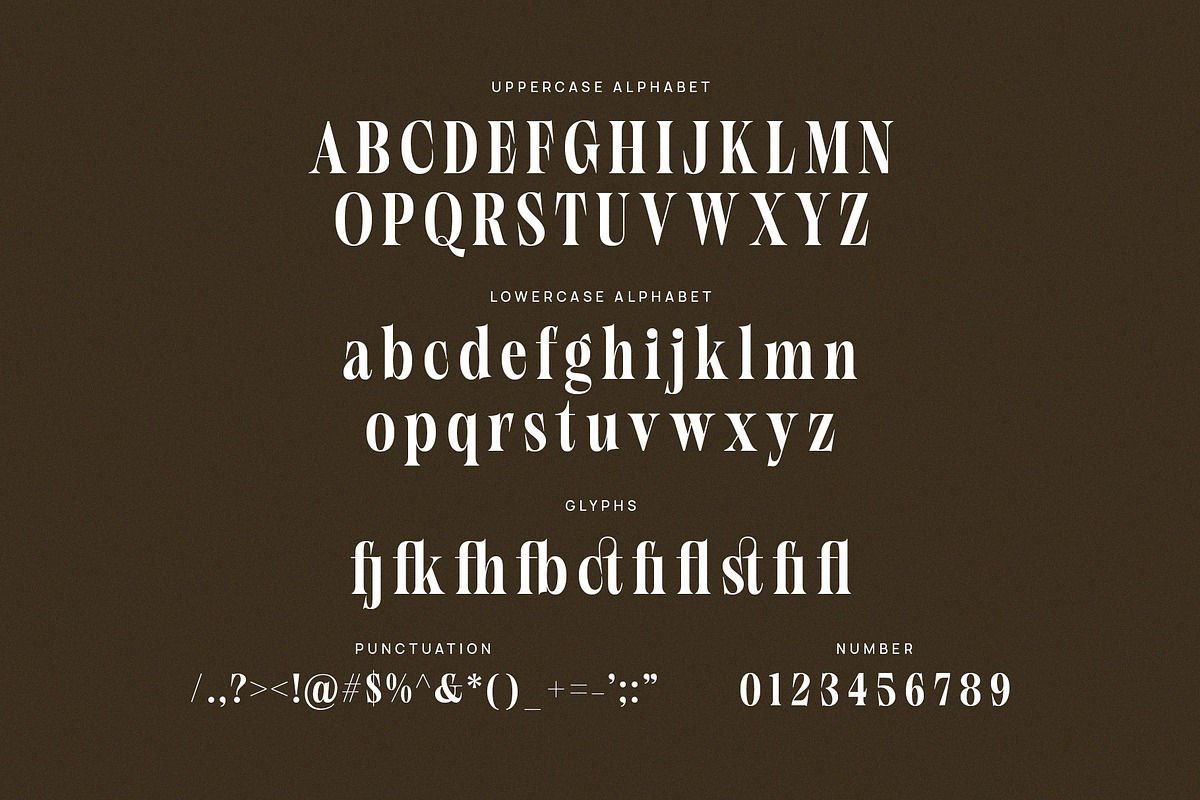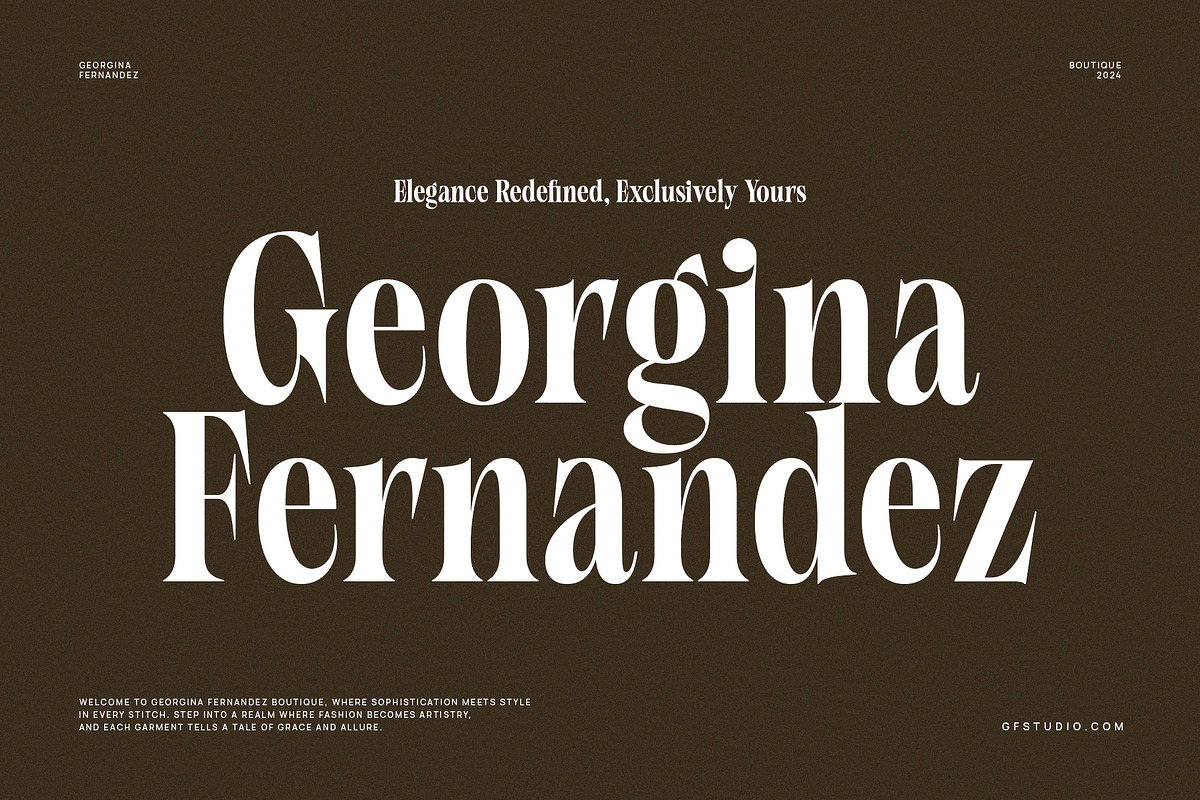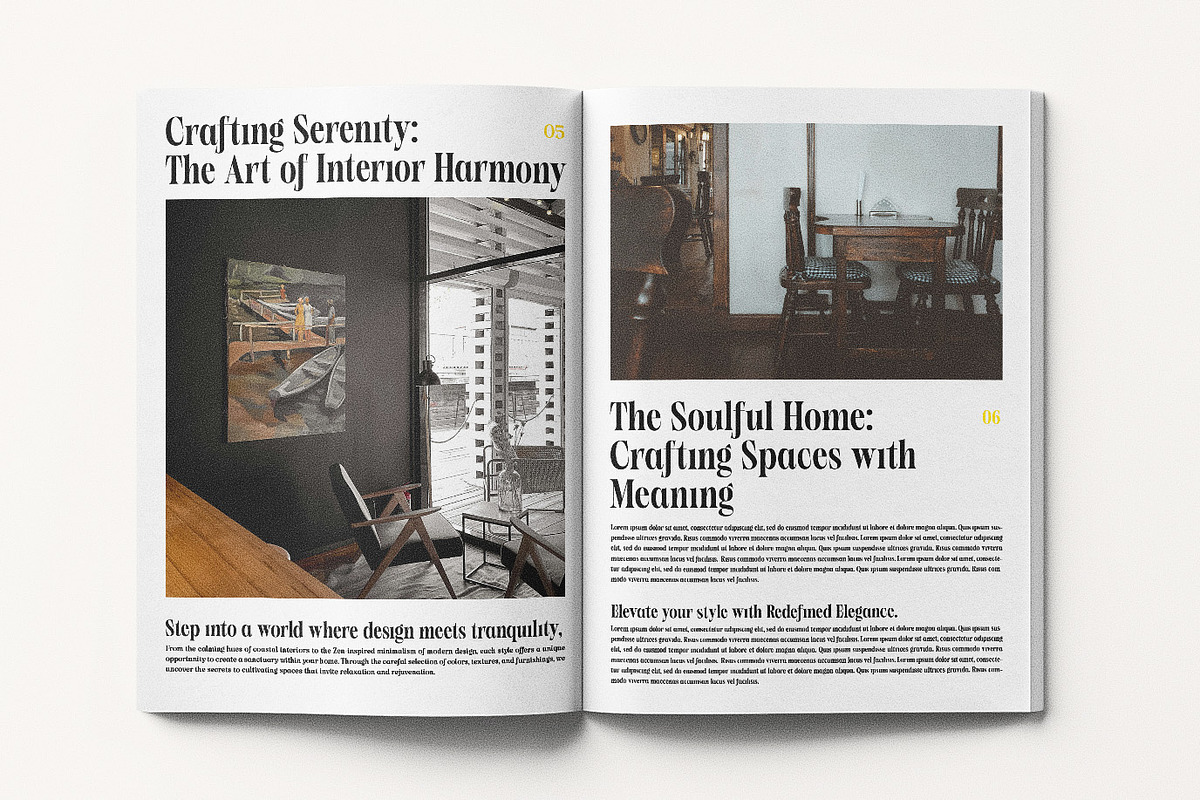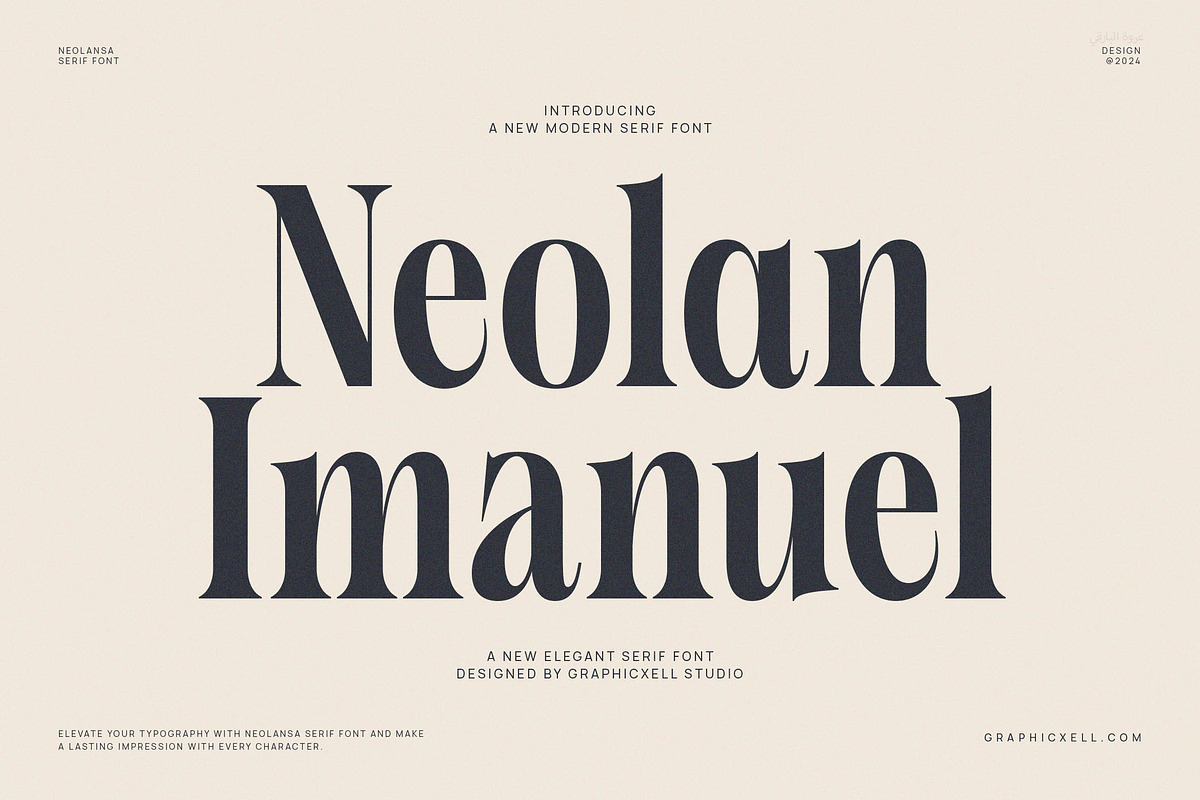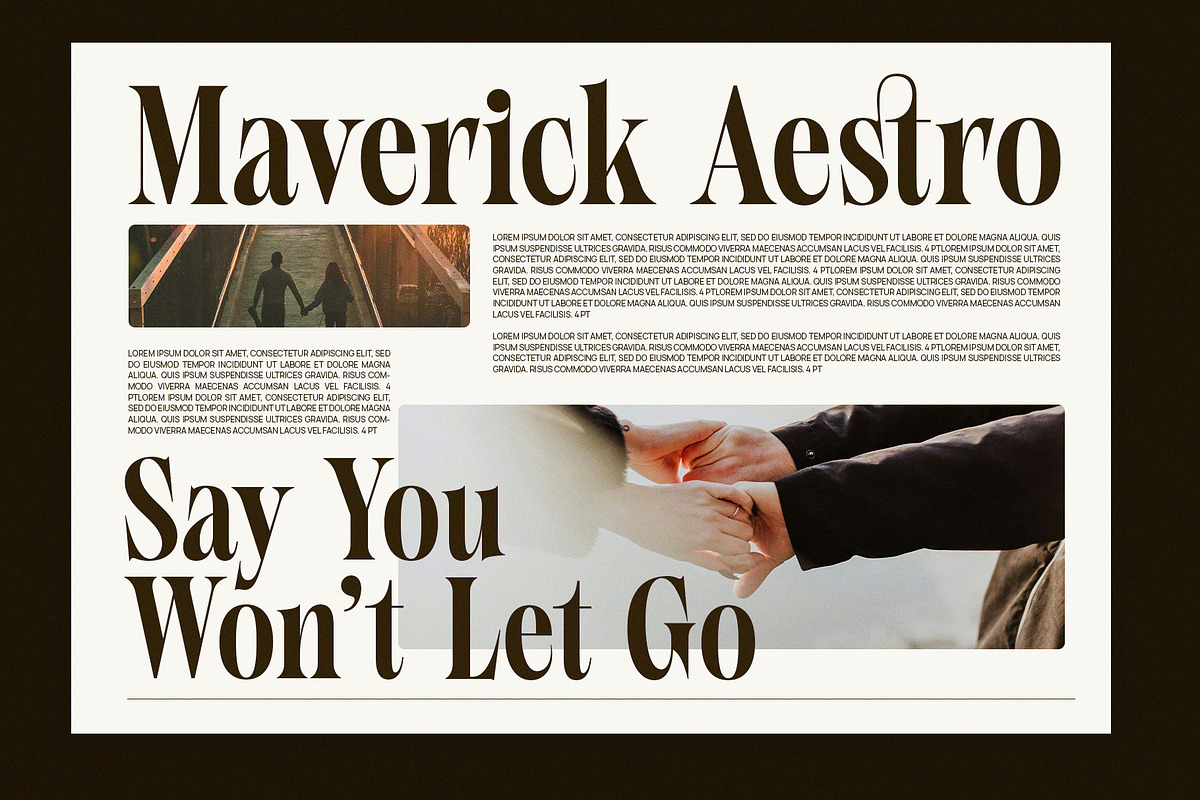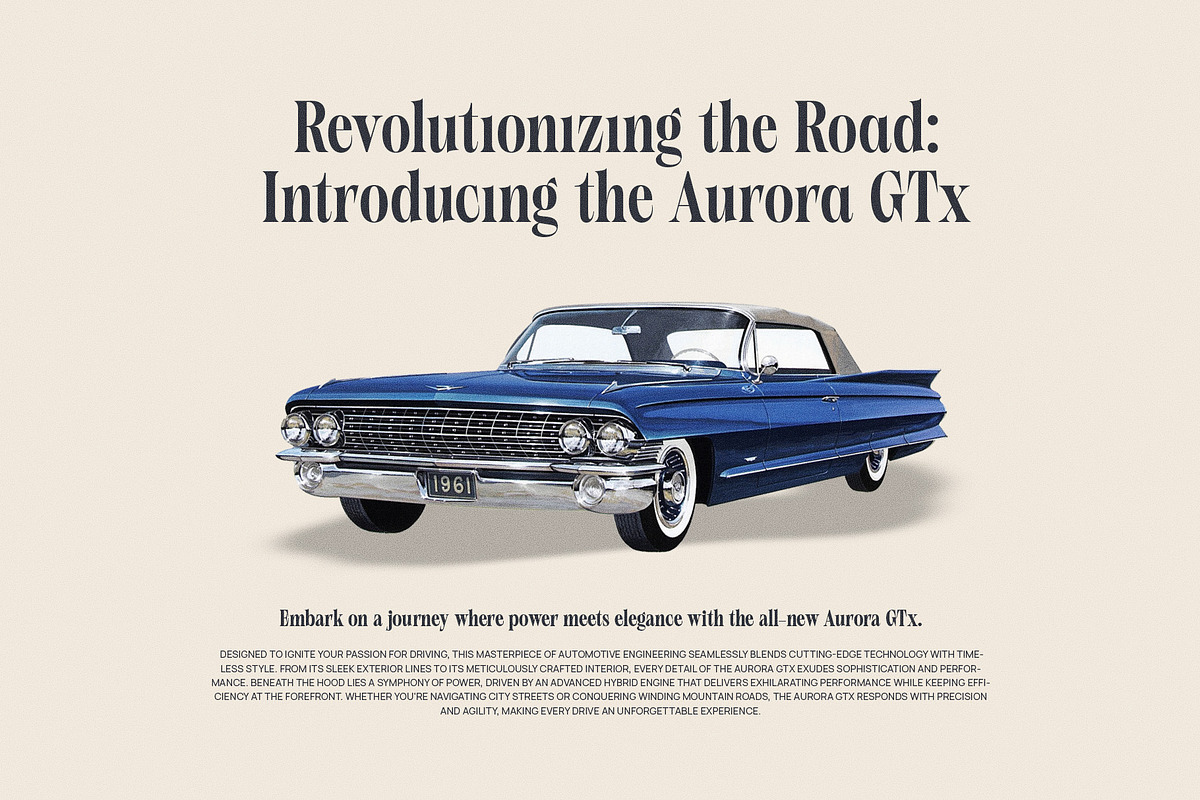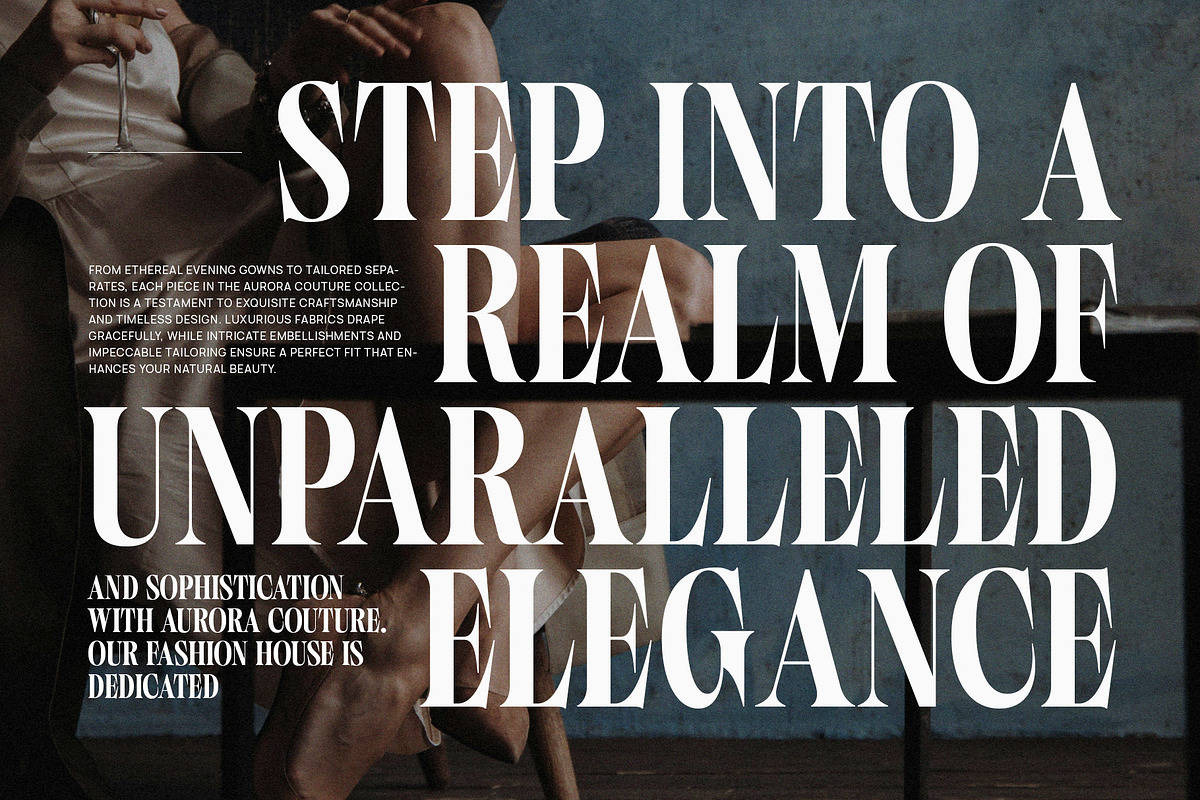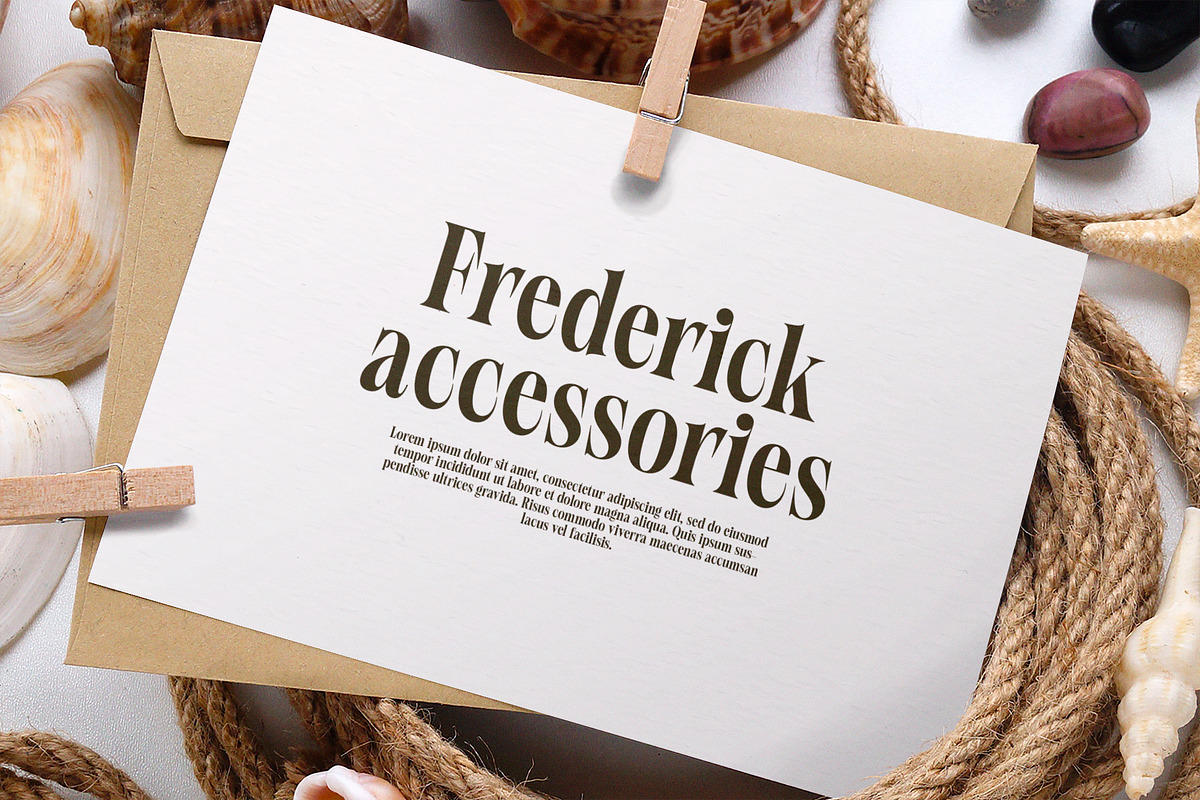
Neolan Imanuel Modern Serif Font
You can probably find so many unique fonts. However, Neolan Imanuel Modern Serif Font is the only font style that combines uniqueness and elegance. Its eccentric style makes the font seem unique. Maybe, you probably have never seen a font with such anti-mainstream ligature. Each sharp edge of the font is its trademark. And, the combination of thick and thin forms creates its own charm. This typeface also comes with a modern and classy style. Then, it is best for different needs from branding to product designs. Other uses that suit this font type are stationary, invitations, watermarks, photography, labels, product packaging, ads, social media posts, wedding designs, logos, etc. Or, you can use it for other projects as it has a high level of creativity and readability. So, this Neolan Imanuel Modern Serif Font will not disappoint you. The typical style of this font makes your work easier to notice. Anyone who works in graphic design projects must try this elegant font. Now, you shouldn’t be confused to level up your design because this font will impress your audience. Therefore, there’s no worry to get Neolan Imanuel Modern Serif Font.